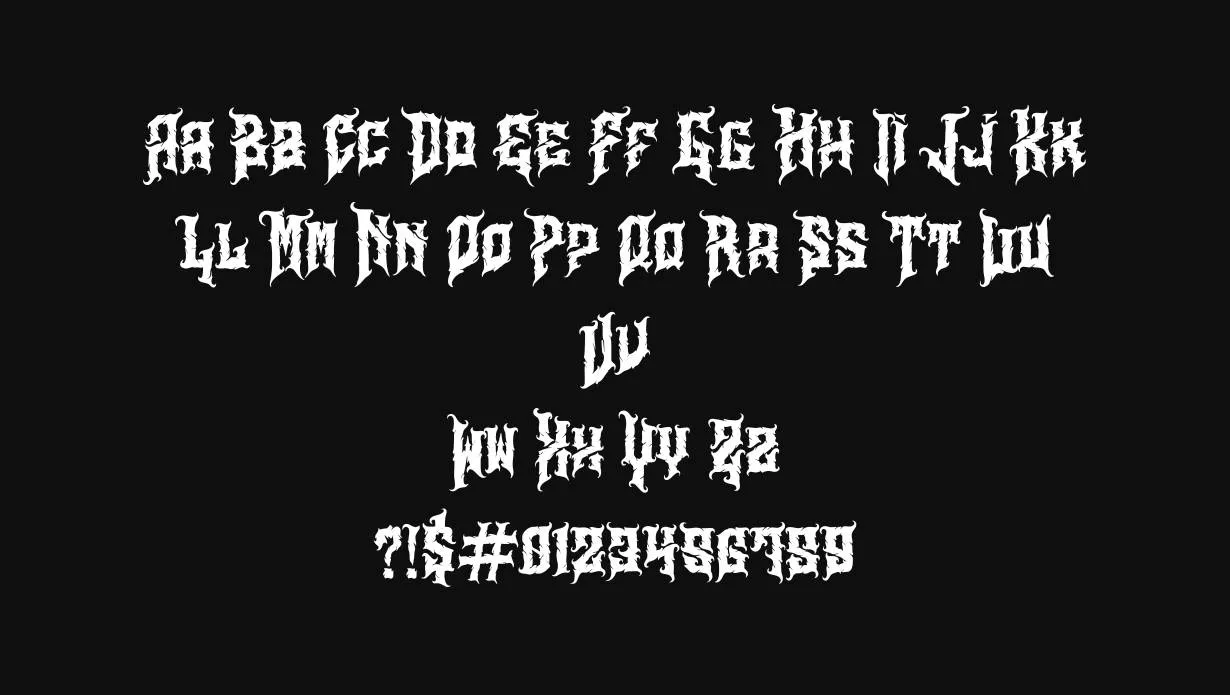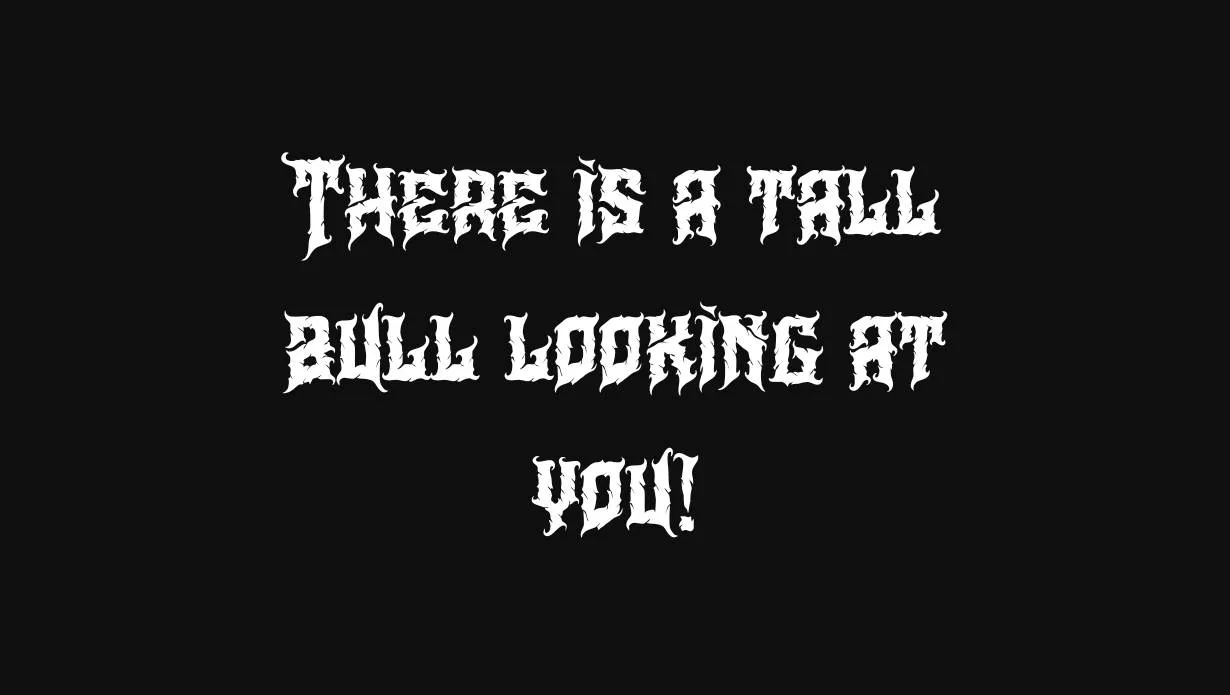
We’re presenting Aligator Font, a Gothic font that was created by Risman Ginarwan and released by Garisman Studio in 2020 along with TTF and OTF formats.
This font has eye-catching and innovative characters in large and small letters, figures, and some punctuation marks that can bring a strong, durable, and modern appearance to any content with its strong and thick strokes.
| Name | Aligator Font |
| Designer | Risman Ginarwan |
| Style | Gothic |